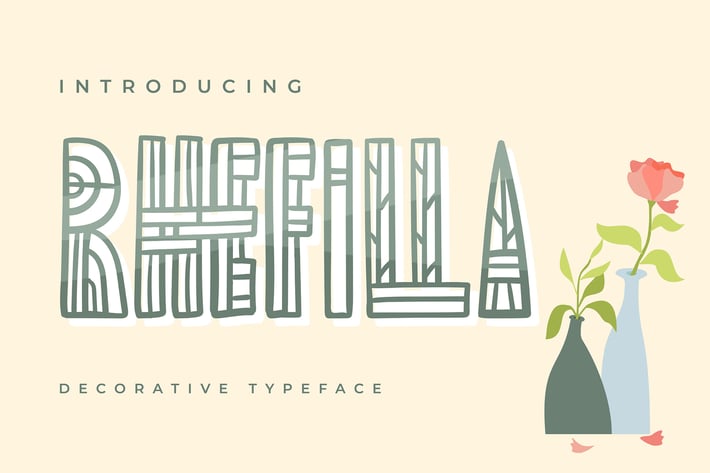
Rhefilla | Decorative Typeface
Rhefilla | Decorative Typeface with a calligraphy style, So beautiful on invitation like greeting cards, branding materials, business cards, quotes, posters, and more!